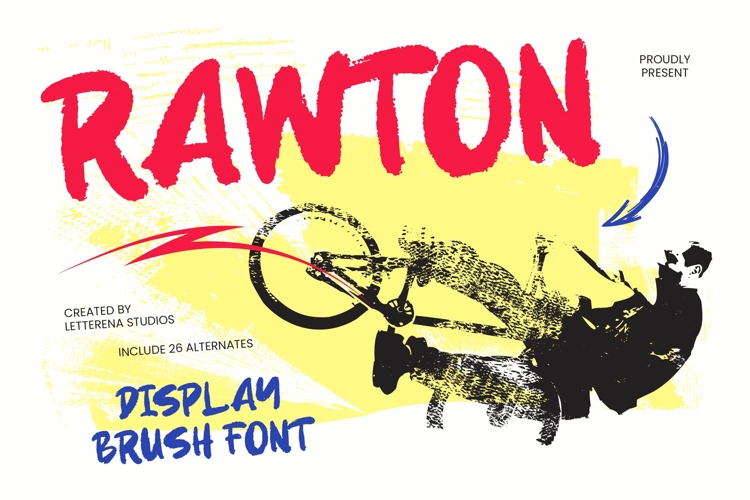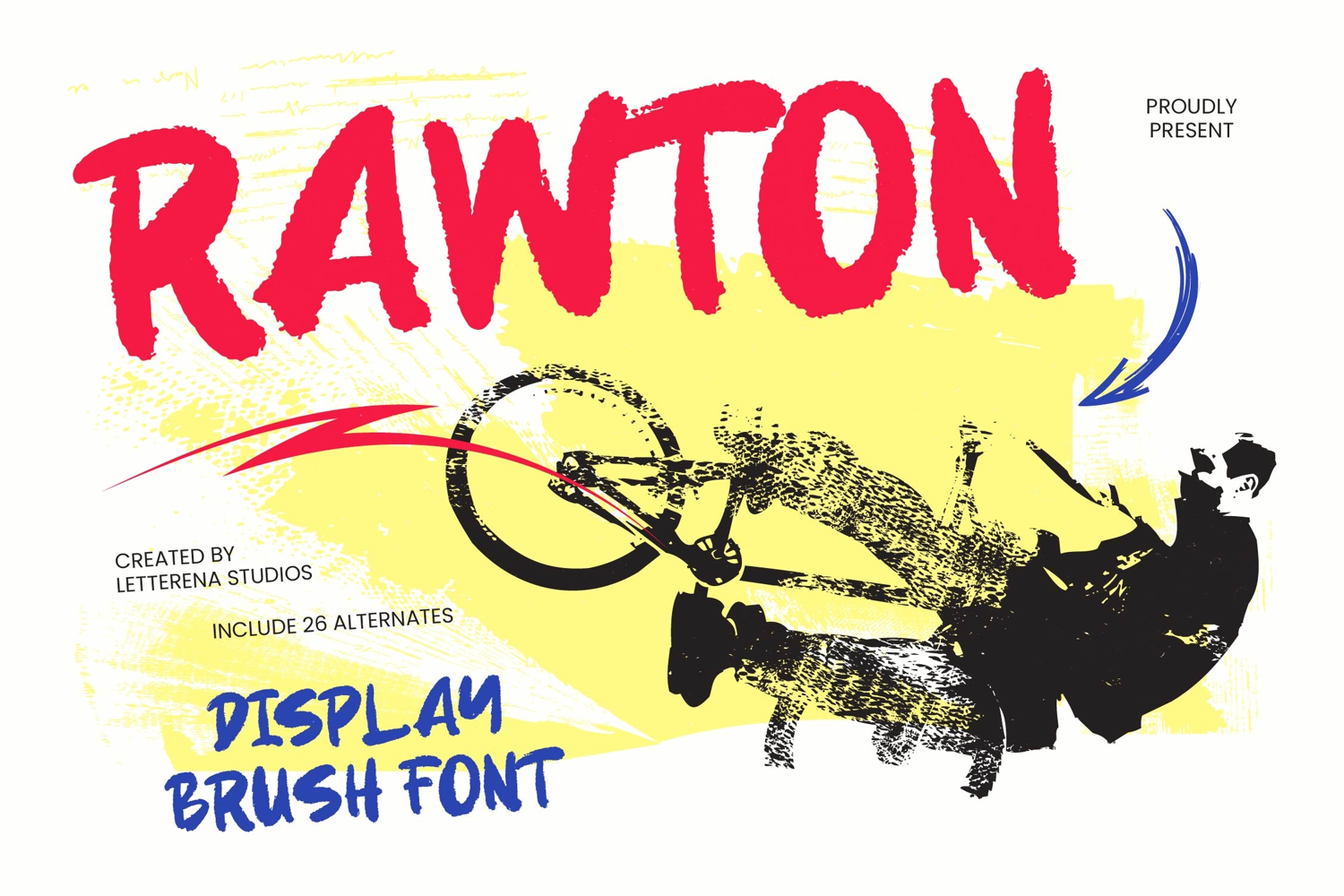
Rawton - Display Brush Font
Unleash the raw energy of your next creative project with the high-octane aesthetic of Rawton - Display Brush Font. This typeface features hand-painted brush strokes that exude an authentic street-style essence, making it perfect for designs that demand immediate visual impact. Its bold silhouettes and gritty textures provide a tactile quality that bridges the gap between digital precision and organic artistry, ensuring your message carries a powerful, human touch.
Elevate your visual identity by utilizing Rawton - Display Brush Font for high-impact branding and dynamic marketing campaigns. This font is the ideal solution for streetwear labels, extreme sports graphics, and edgy editorial layouts where a conventional typeface simply cannot compete. It is perfect for creating memorable logos, cinematic titles, and provocative social media content that resonates deeply with a modern, fast-paced demographic seeking unfiltered authenticity.
Expand your creative horizons beyond borders with a typeface engineered for the modern global landscape. With its extensive multilingual support, Rawton - Display Brush Font adapts seamlessly across global markets, making it incredibly versatile for international projects. This global accessibility ensures that your brand maintains its strong visual voice and uncompromising style regardless of the region, providing a consistent advantage in an increasingly interconnected marketplace.